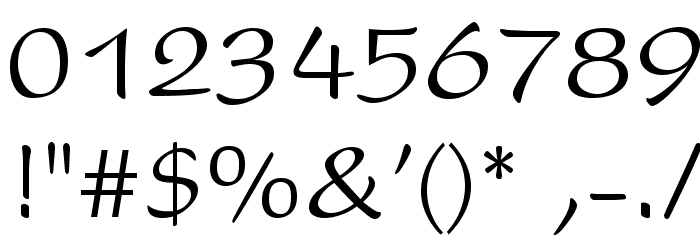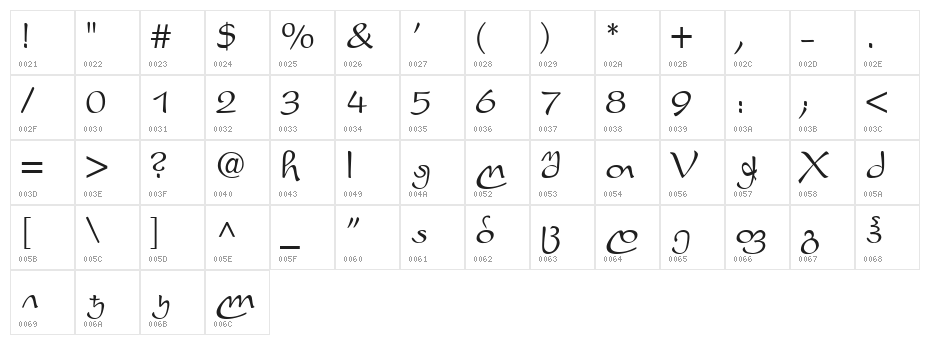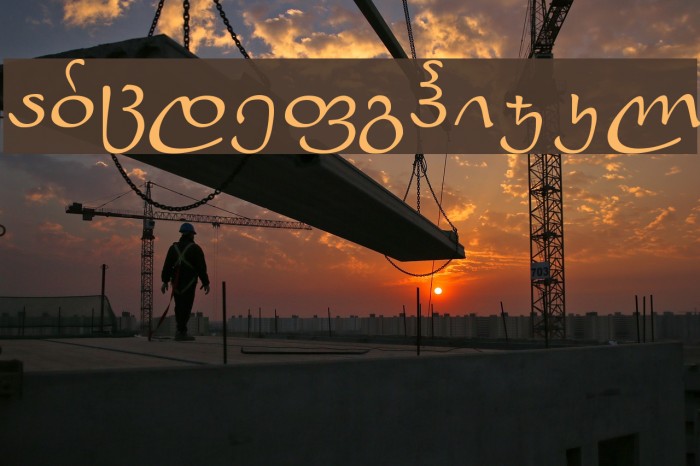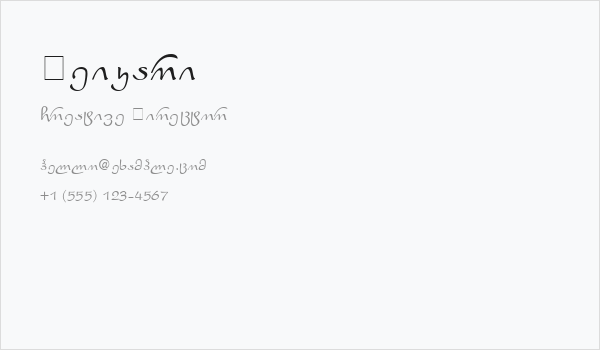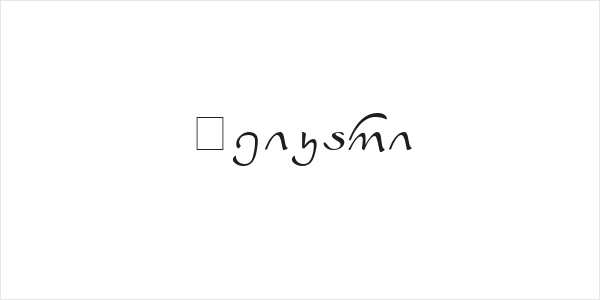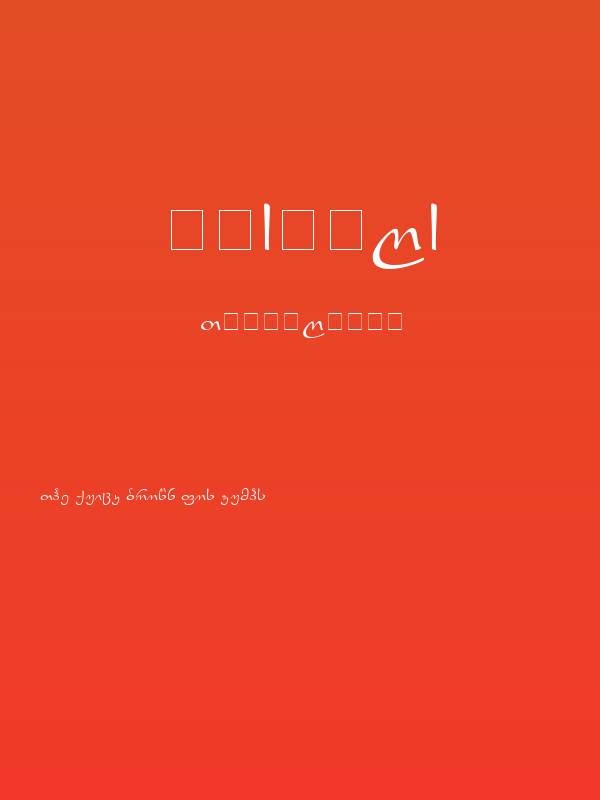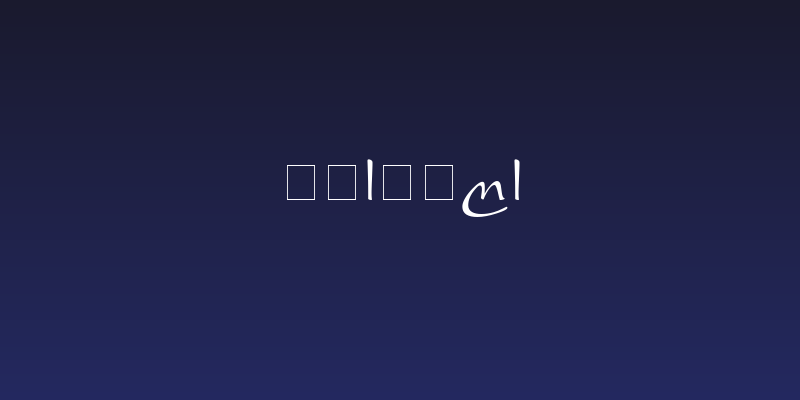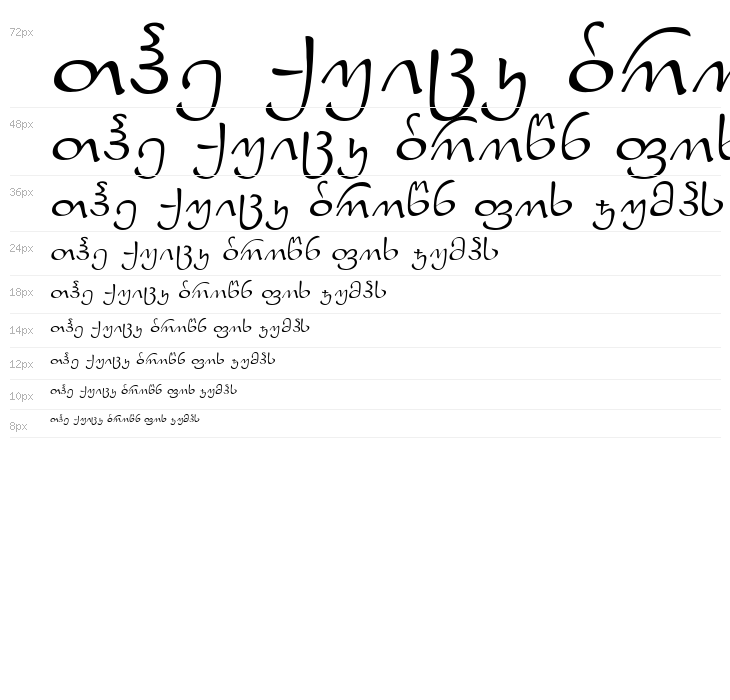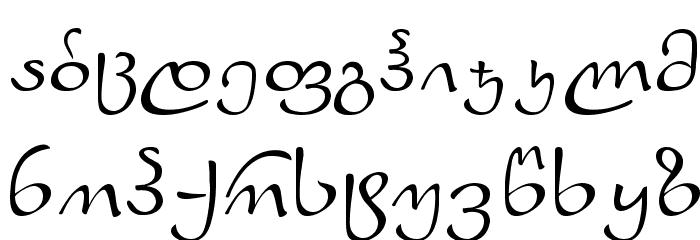
Peikari Font
Peikari Description
This font features a unique and artistic script style with a flowing, handwritten appearance. The characters are elegantly curved, with a playful yet sophisticated flair. The uppercase letters are bold and prominent, while the lowercase letters maintain a consistent fluidity, adding to the font's charm. Numbers are clear and legible, complementing the overall design. Special characters are creatively integrated, enhancing the font's versatility. This font is ideal for projects that require a personal touch, such as invitations, greeting cards, or branding materials.
| Proposed Projects | Ideal for invitations, greeting cards, branding, and creative projects requiring a personal touch. |